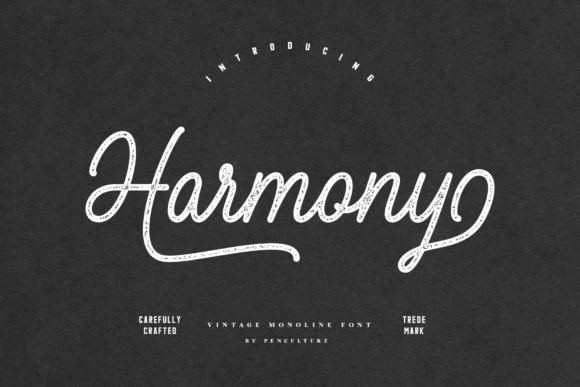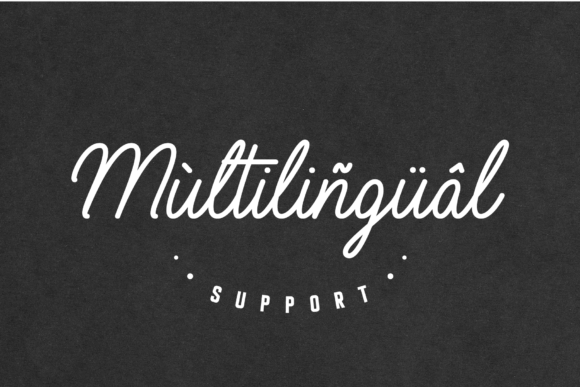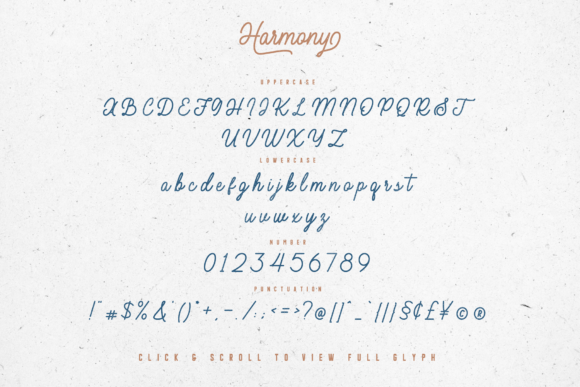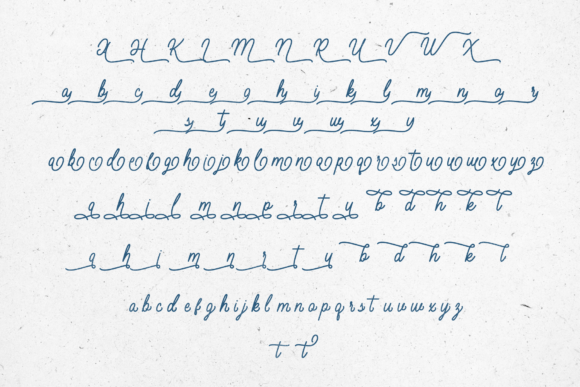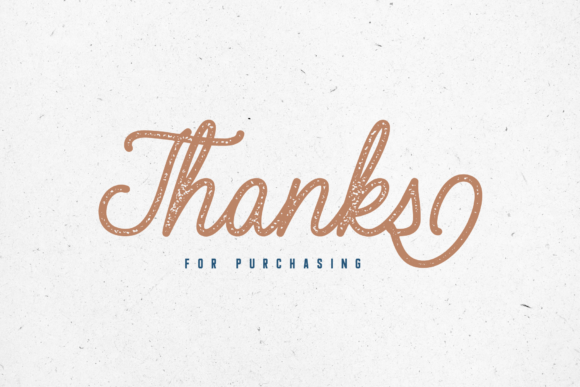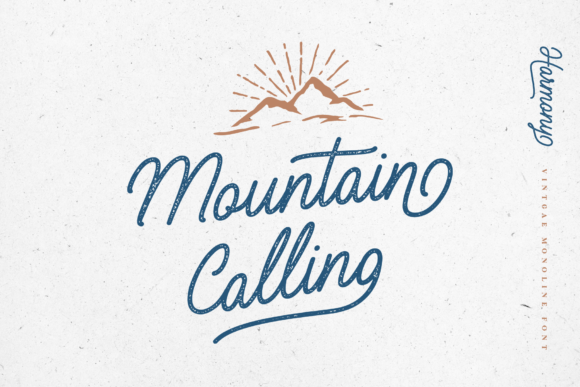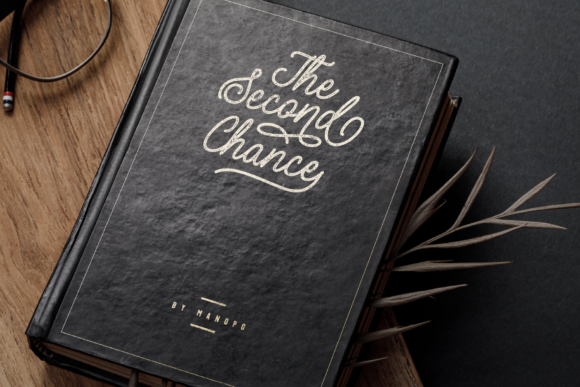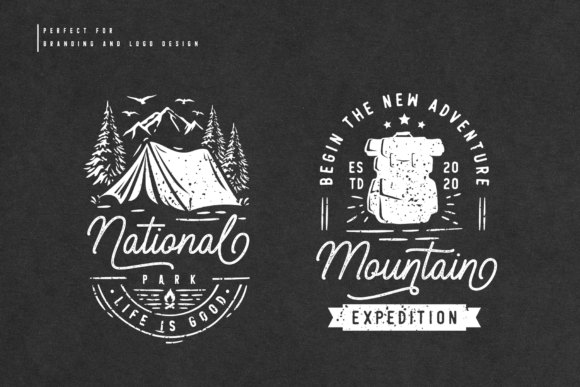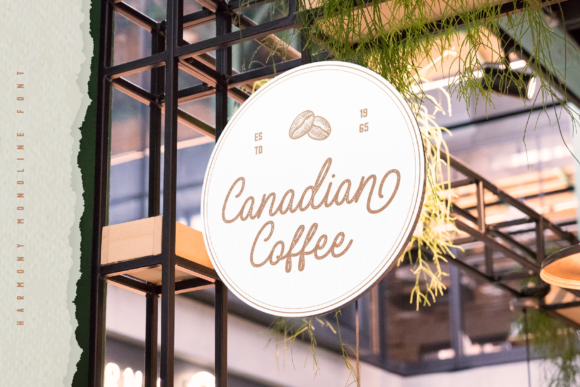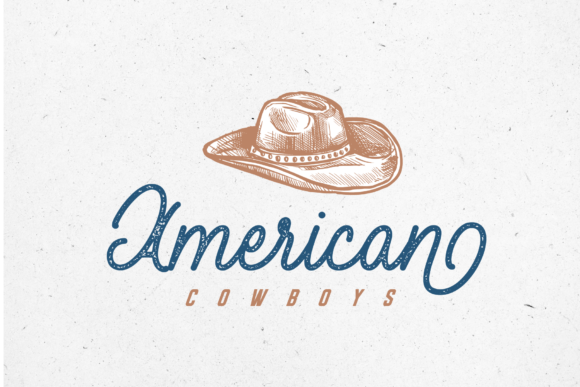
Harmony Font
About Harmony Font
“Harmony” is a vintage-inspired and delicately handwritten font, meticulously crafted to achieve optimal results. It embodies a sense of careful design to ensure its maximum impact. This font has the power to infuse elegance and class into all of your design projects.
The font’s charm lies in its ability to seamlessly blend a vintage aesthetic with a subtle handwritten touch. Its carefully designed characters contribute to an overall sense of sophistication and refinement that can enhance a wide range of creative endeavors.
“Harmony” becomes a harmonious addition to various design contexts, adding a touch of class to everything it graces. Whether applied to branding materials, invitations, or other forms of visual communication, its versatile appeal makes it adaptable for diverse creative requirements.
The PUA encoding of this font further enhances its appeal, providing designers with the convenience to explore a variety of design variations and decorative elements, thereby expanding its creative potential.
To summarize, “Harmony” offers a vintage-inspired font with a subtle handwritten feel, combining elegance and class. Its ability to add a touch of sophistication to projects, combined with the convenience of PUA encoding, makes it a valuable tool for designers aiming to enhance the visual impact of their creations.